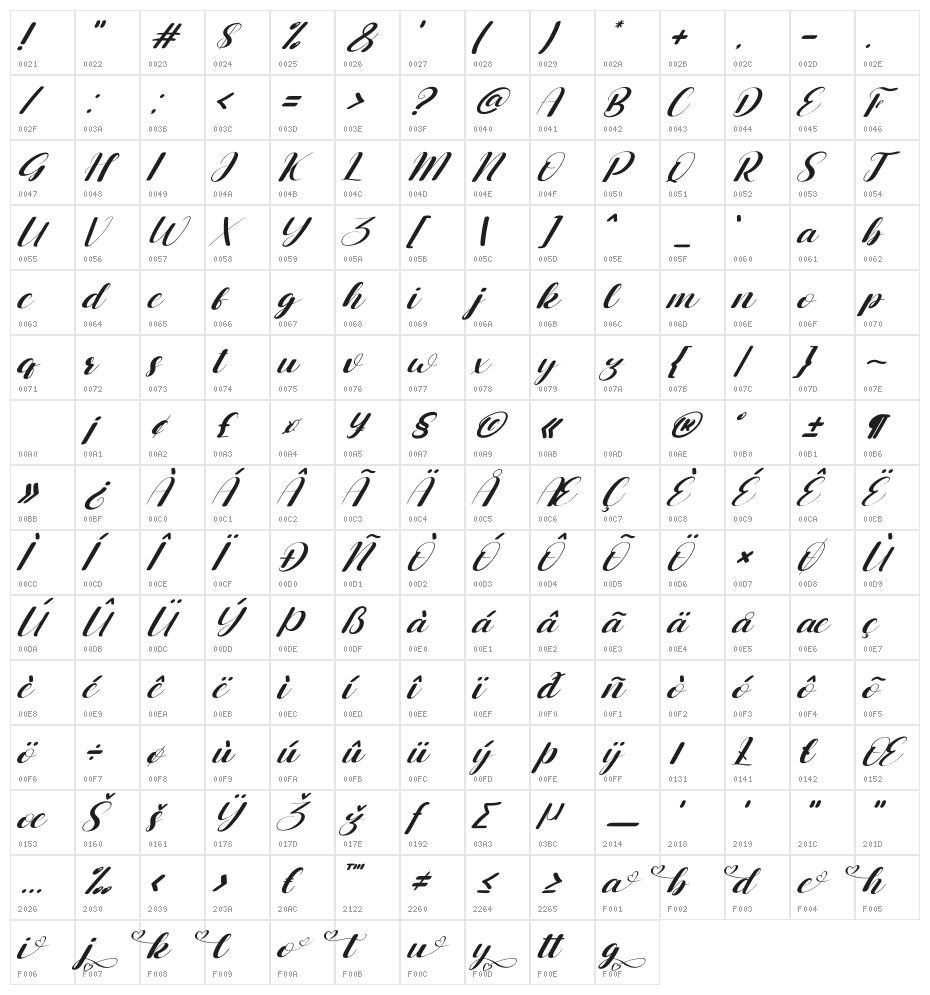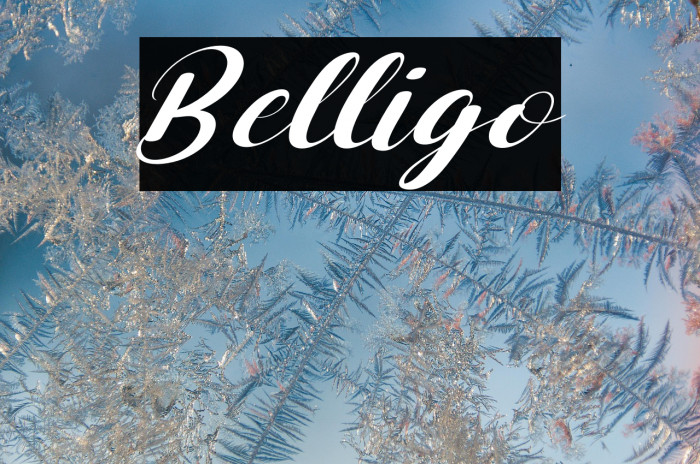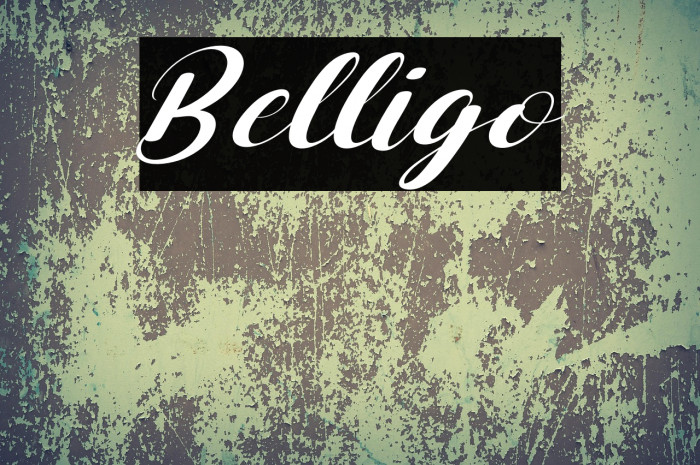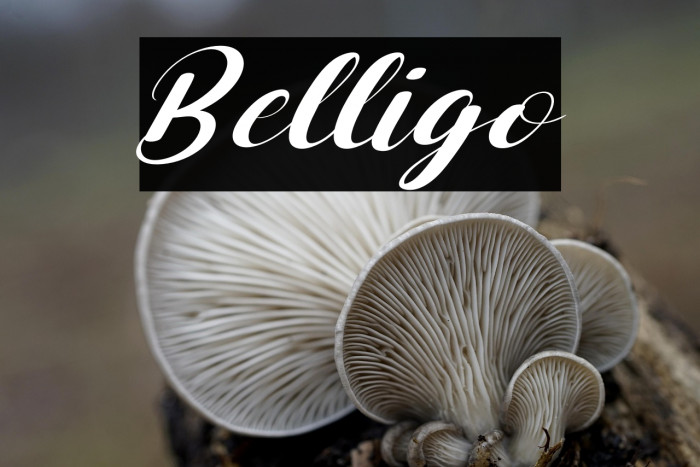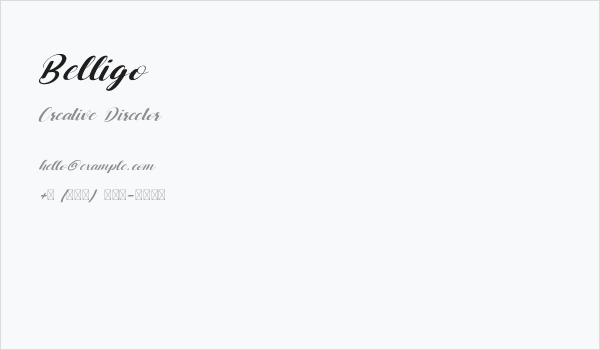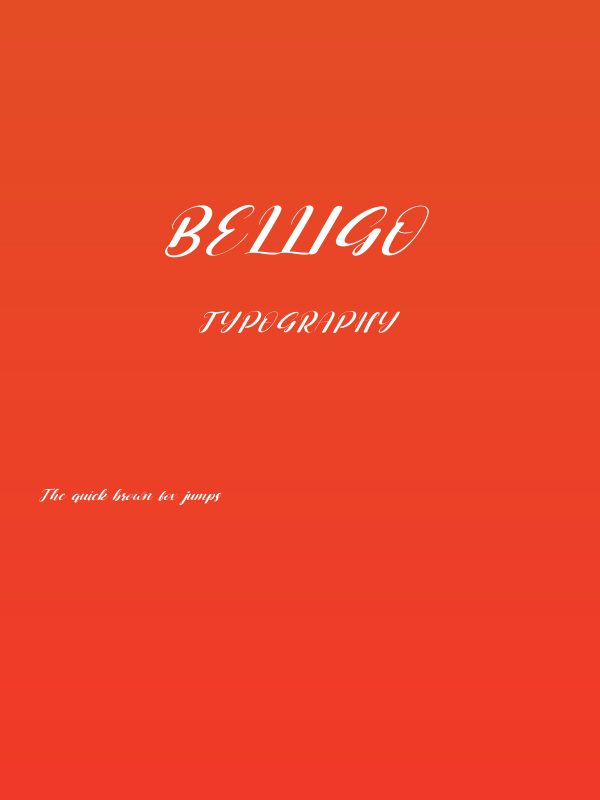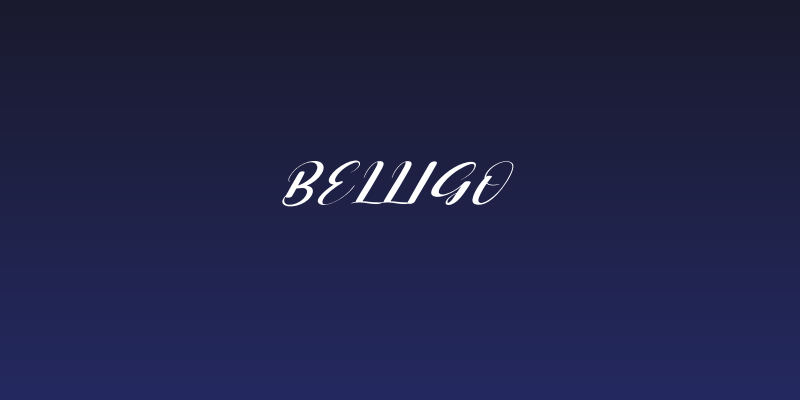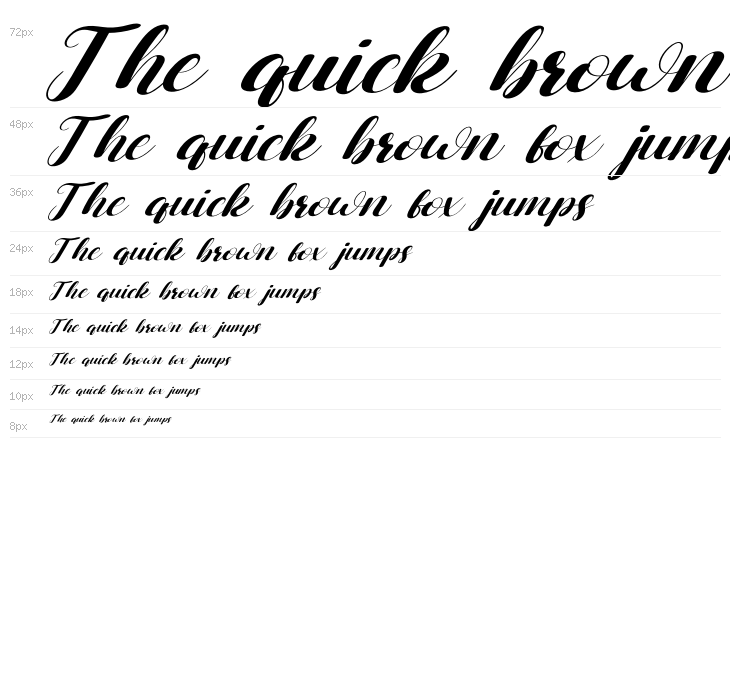
Belligo Font
Belligo Description
This elegant script font features a flowing, cursive style with high contrast between thick and thin strokes. The uppercase letters are characterized by their sweeping curves and decorative flourishes, while the lowercase letters maintain a consistent, fluid motion. The font exudes a sense of sophistication and grace, making it ideal for formal invitations, branding, and elegant design projects. The special characters are designed to complement the overall aesthetic, adding a touch of refinement to any text.
| Overall Style | Elegant |
| Use Case | Invitations, Branding, Decorative text |
| Proposed Projects | Ideal for wedding invitations, luxury branding, elegant stationery, and high-end product packaging. |